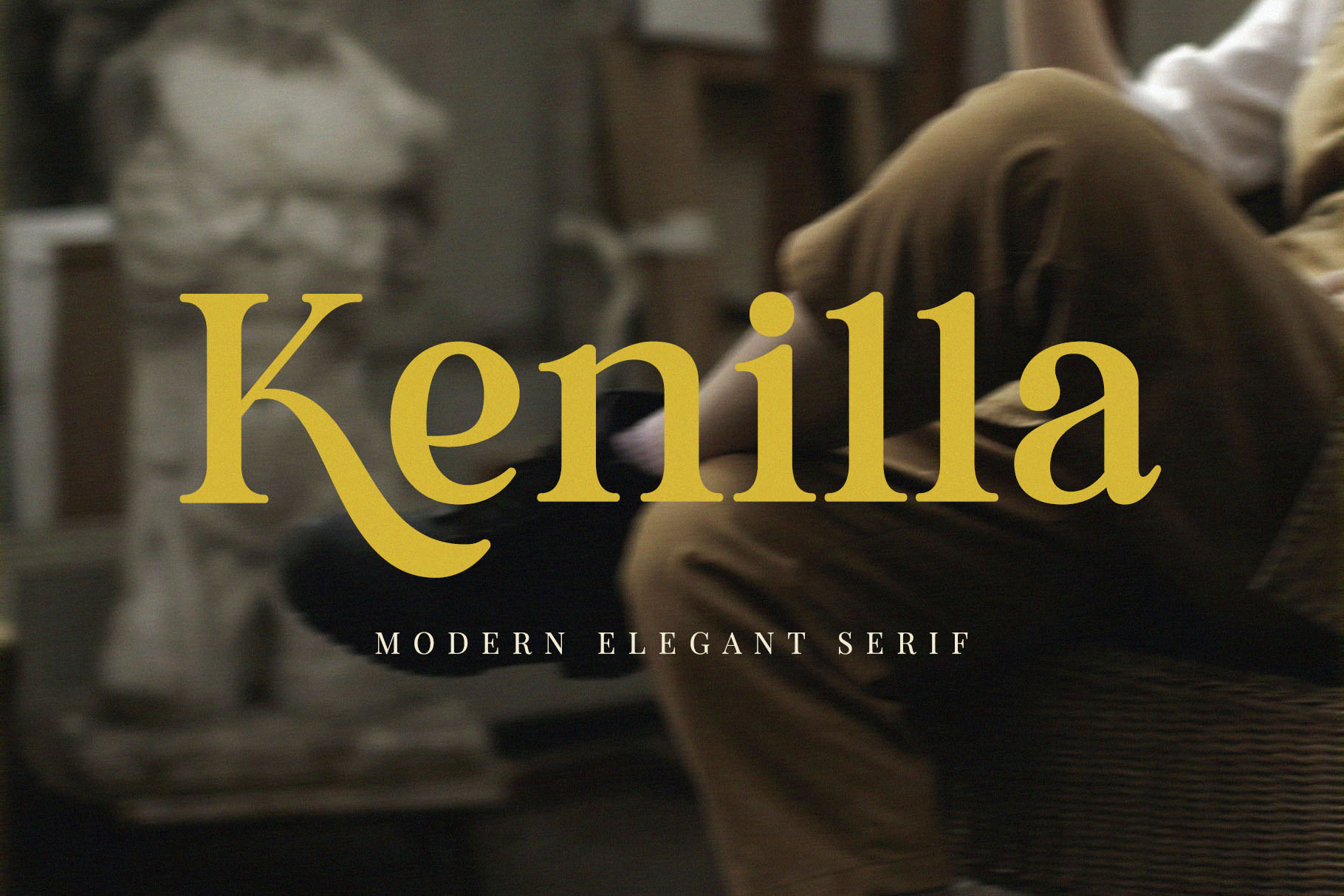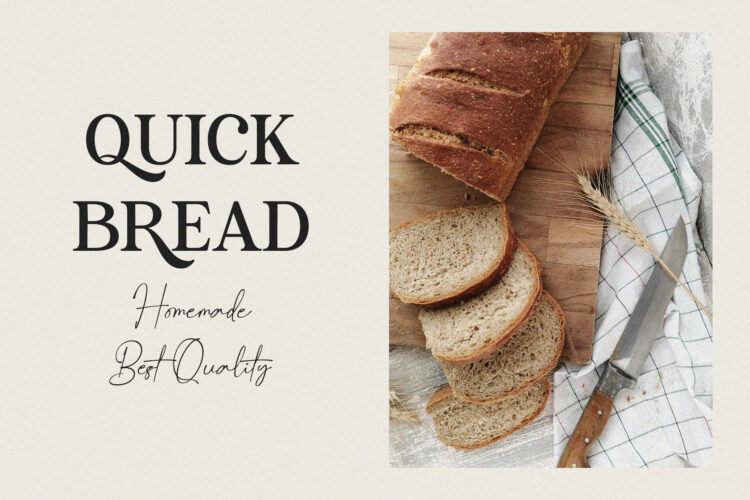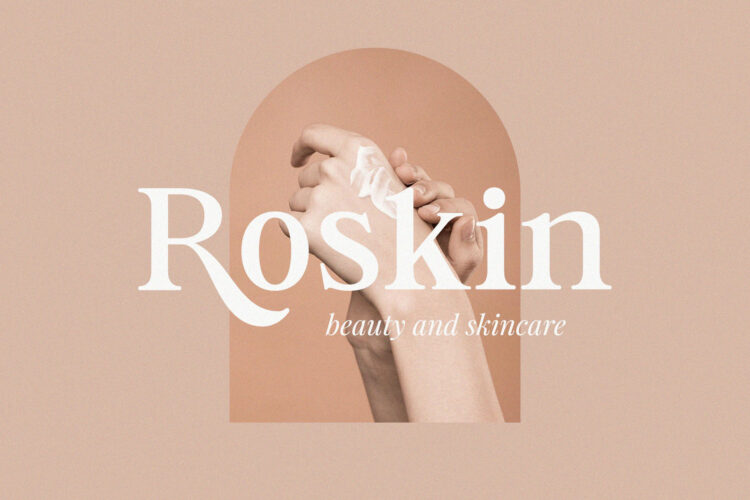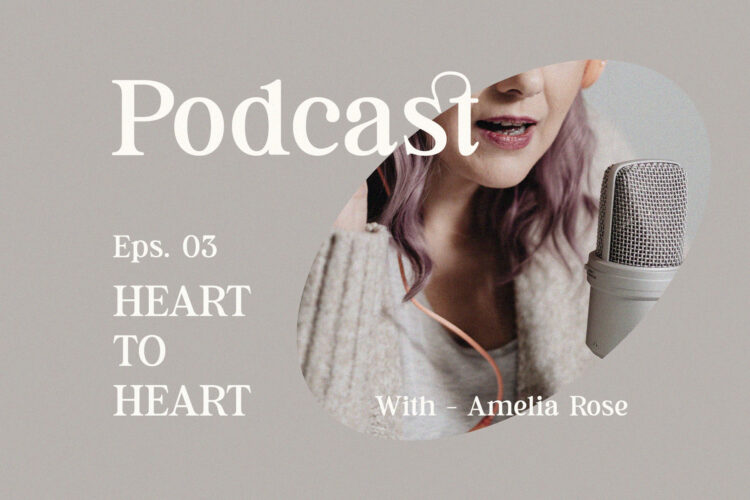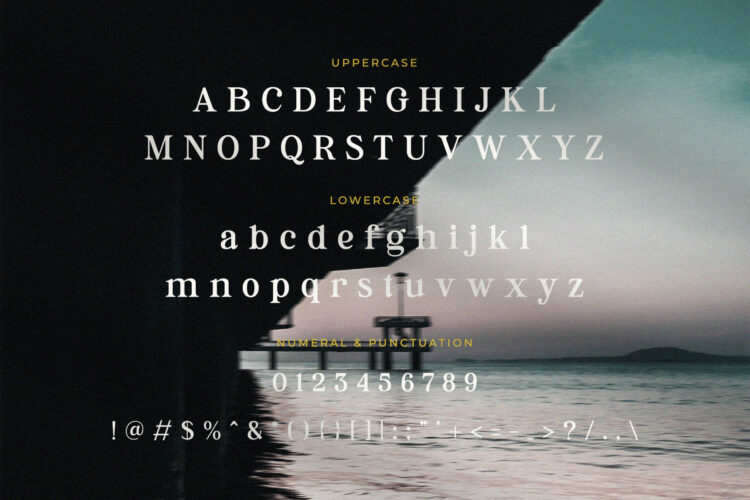
Introducing Kenilla Modern Elegant Serif.
Kenilla is a modern and elegant typeface, best used as a display for headings, logos, branding, magazines, product packaging and invitations. Kenilla come with clean lines and smooth curves give any project an extra touch of class.